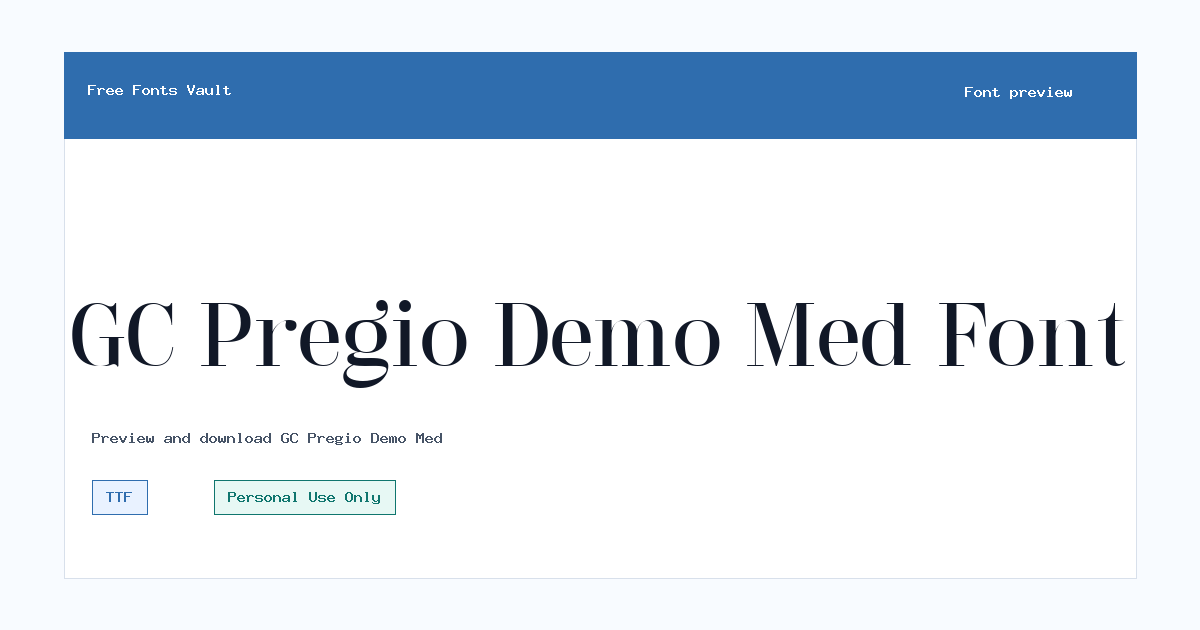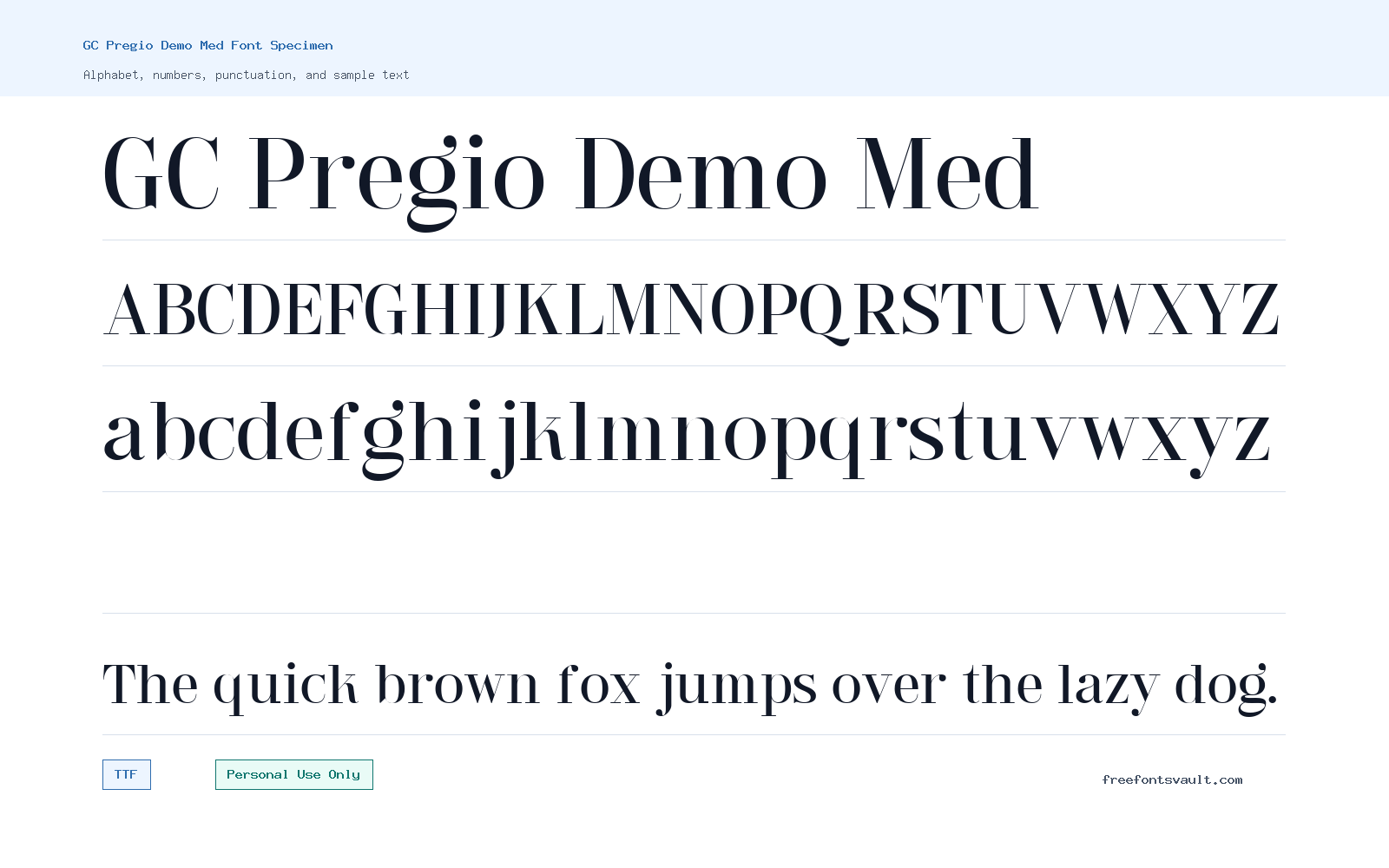
GC Pregio Demo Med
GC Pregio Demo Med is a medium-weight serif font with a polished, display-friendly look. It works best when you need a refined serif voice for personal projects, especially in short text where the letter shapes can stand out.
GC Pregio Demo Med has the feel of a classic serif with a controlled, modern presentation. The available font file is a TTF in a regular style with a 500 weight, so it sits between a lighter text face and a heavier headline style. That makes it useful for titles, nameplates, invitation-style layouts, branding drafts, and poster headings where you want structure without making the text feel too heavy. Because only one medium-weight style is present, it is best treated as a focused display choice rather than a full editorial family.
- Medium-weight serif style with a regular font variant
- Best used for short, prominent text rather than long reading passages
- Useful for personal logo drafts, poster titles, invitations, and web mockups
- Logo concepts and personal branding drafts
- Poster headings and event graphics
- Invitation titles and decorative name layouts
- Website hero text and landing-page mockups
- Packaging, label, and social media design concepts
For the best result, start with GC Pregio Demo Med in headings, names, and short display lines. Pair it with a simple sans serif for body text so the serif can remain the visual focus. In web mockups, try it at larger sizes with generous line height and careful letter spacing. In logo work, test the mark in black and white first, then check whether the word remains readable at small sizes before adding color or effects.
What kind of font is GC Pregio Demo Med?
It is a serif font in a regular medium-weight style. It is better suited to display text than long body copy.
What should I pair with GC Pregio Demo Med?
A clean sans serif is usually a safe pairing. Let GC Pregio Demo Med handle the title or logo-style text, then use the simpler font for paragraphs, captions, menus, or supporting details.